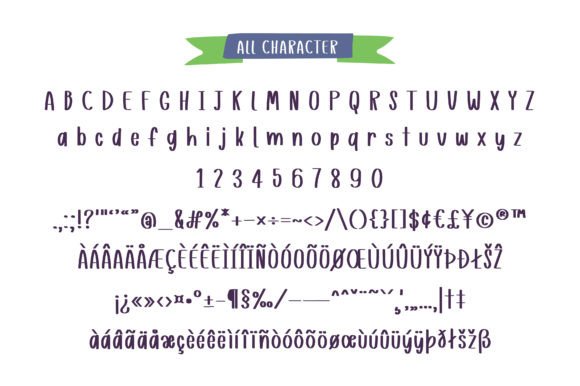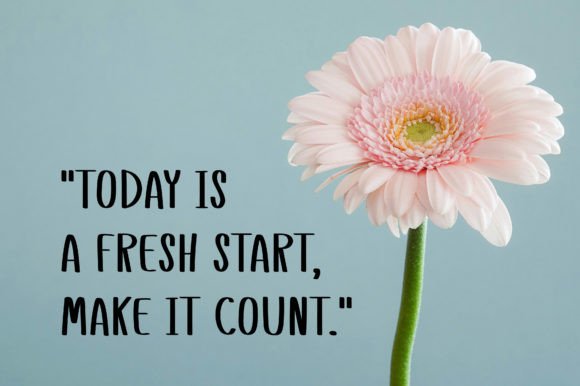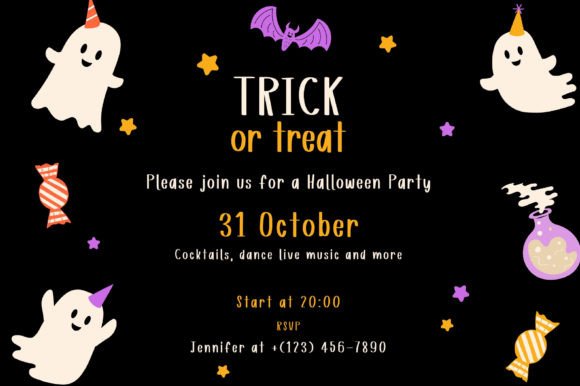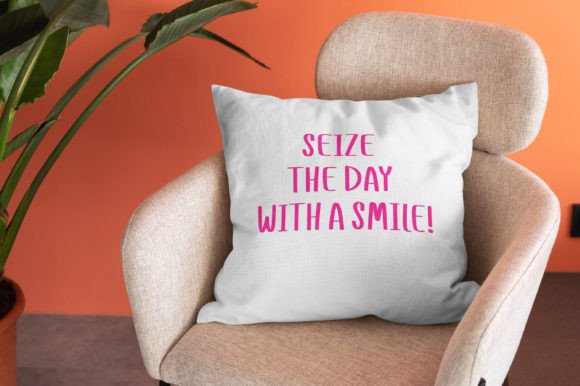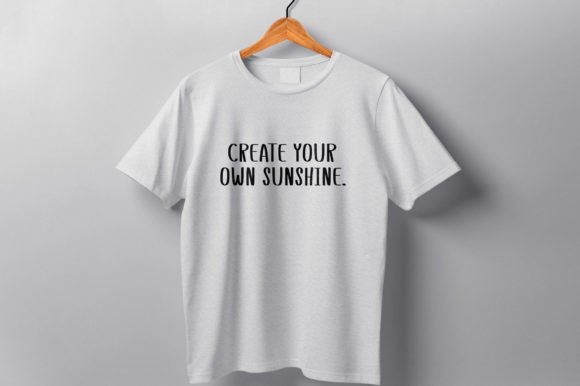
Introduction to Cute Column Font Font
Introducing the CuteColumn Font—an elegant fusion of charm and functionality.
Infused with a refreshing handwritten style, this clean font breathes life into your digital notes and study materials CuteColumn is a whimsical take on sans serif and handwritten fonts.
Key Features of Cute Column Font Font
Why Choose Cute Column Font Font?
Cute Column Font Font offers exceptional quality and versatility, making it a valuable addition to your design toolkit. Whether you’re creating for personal projects or commercial use, Cute Column Font Font delivers professional results.